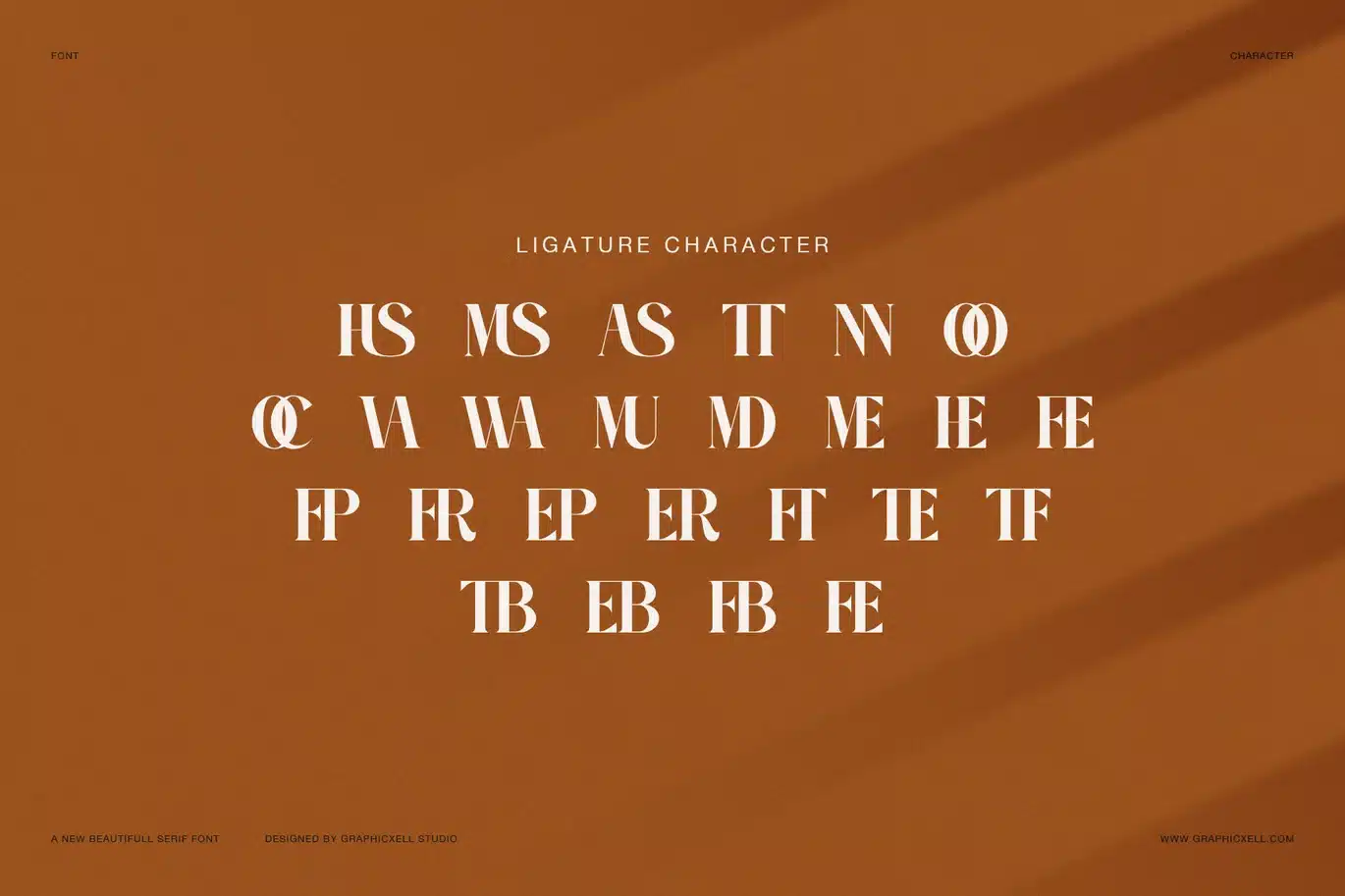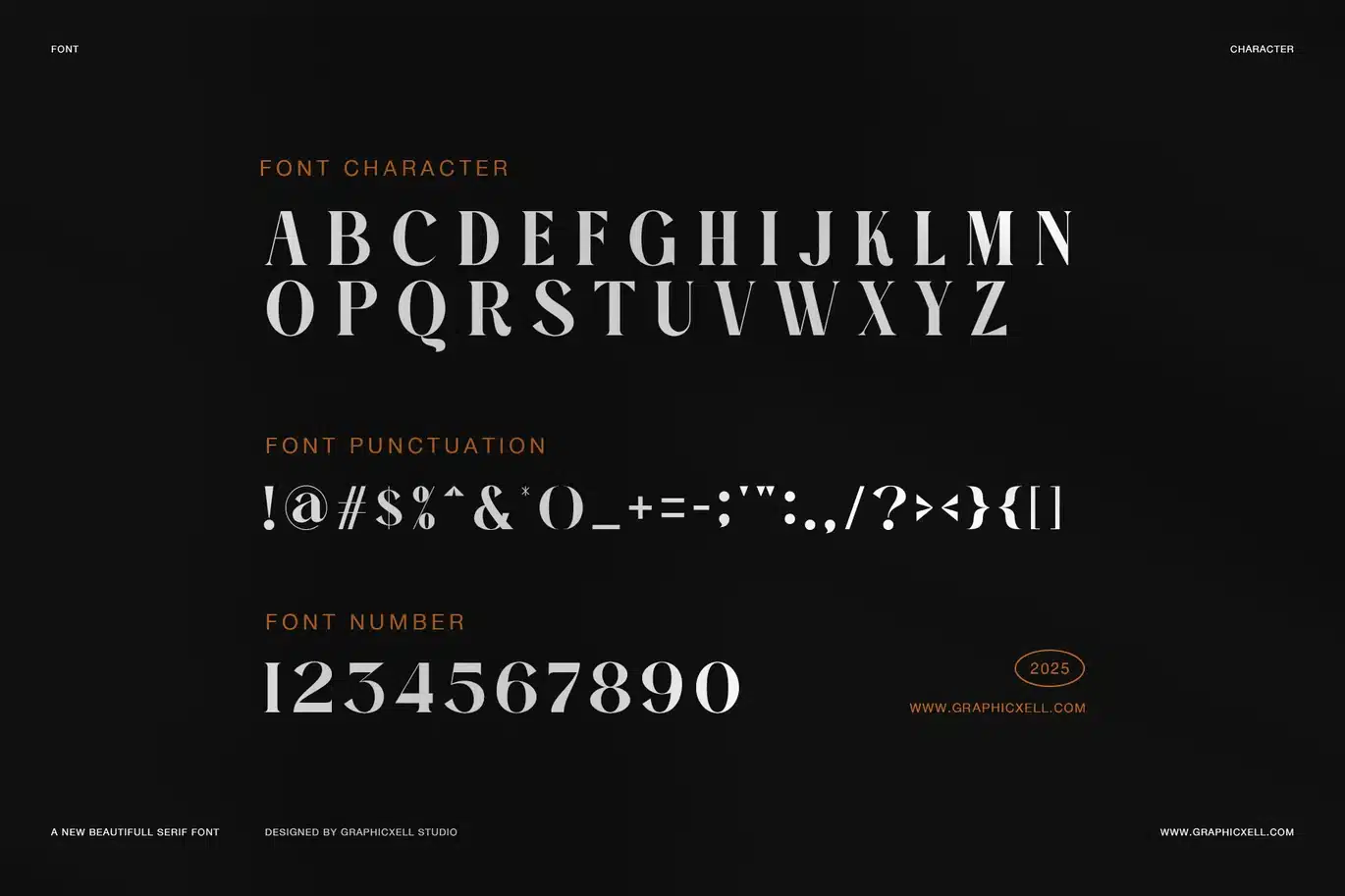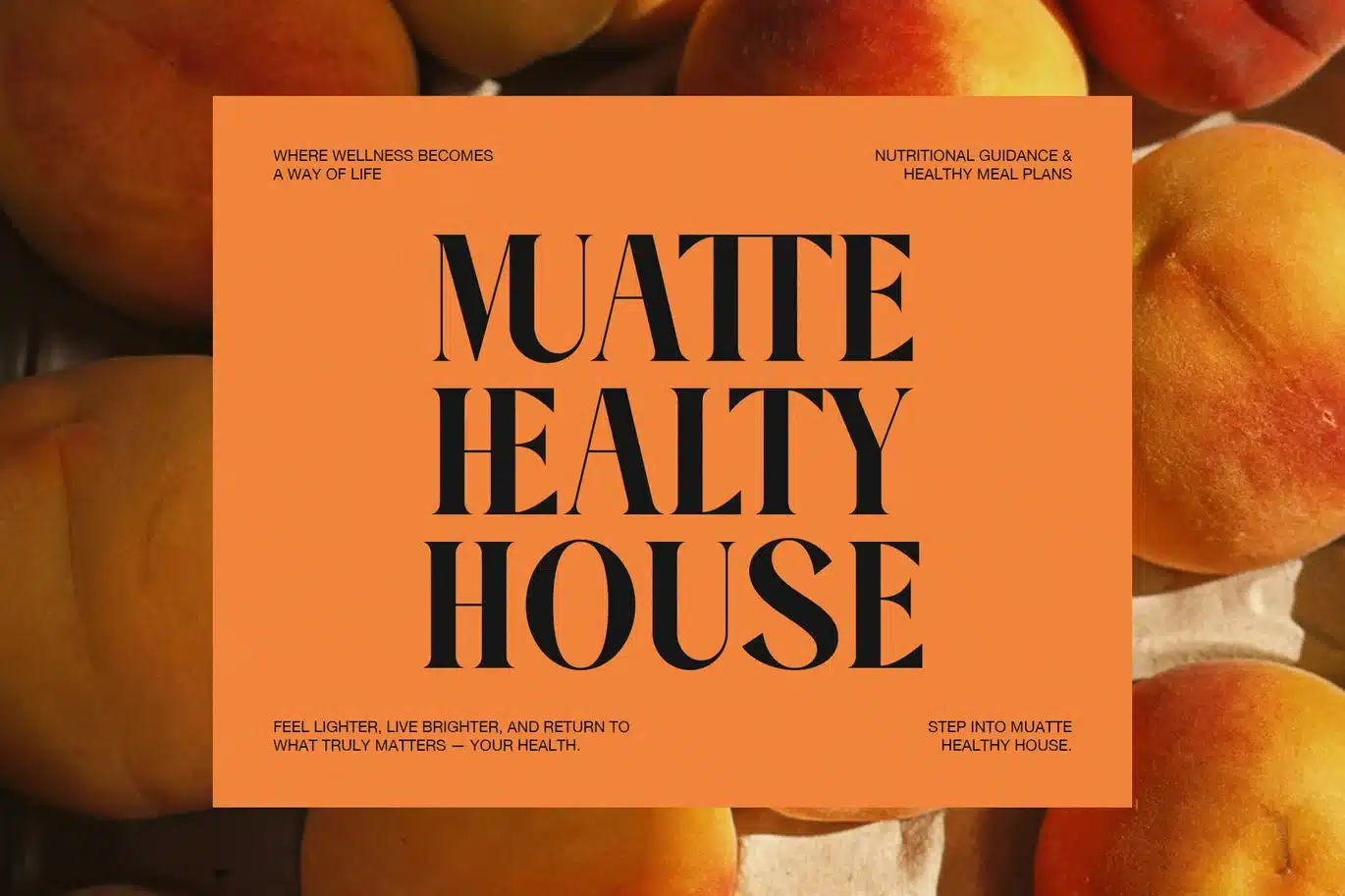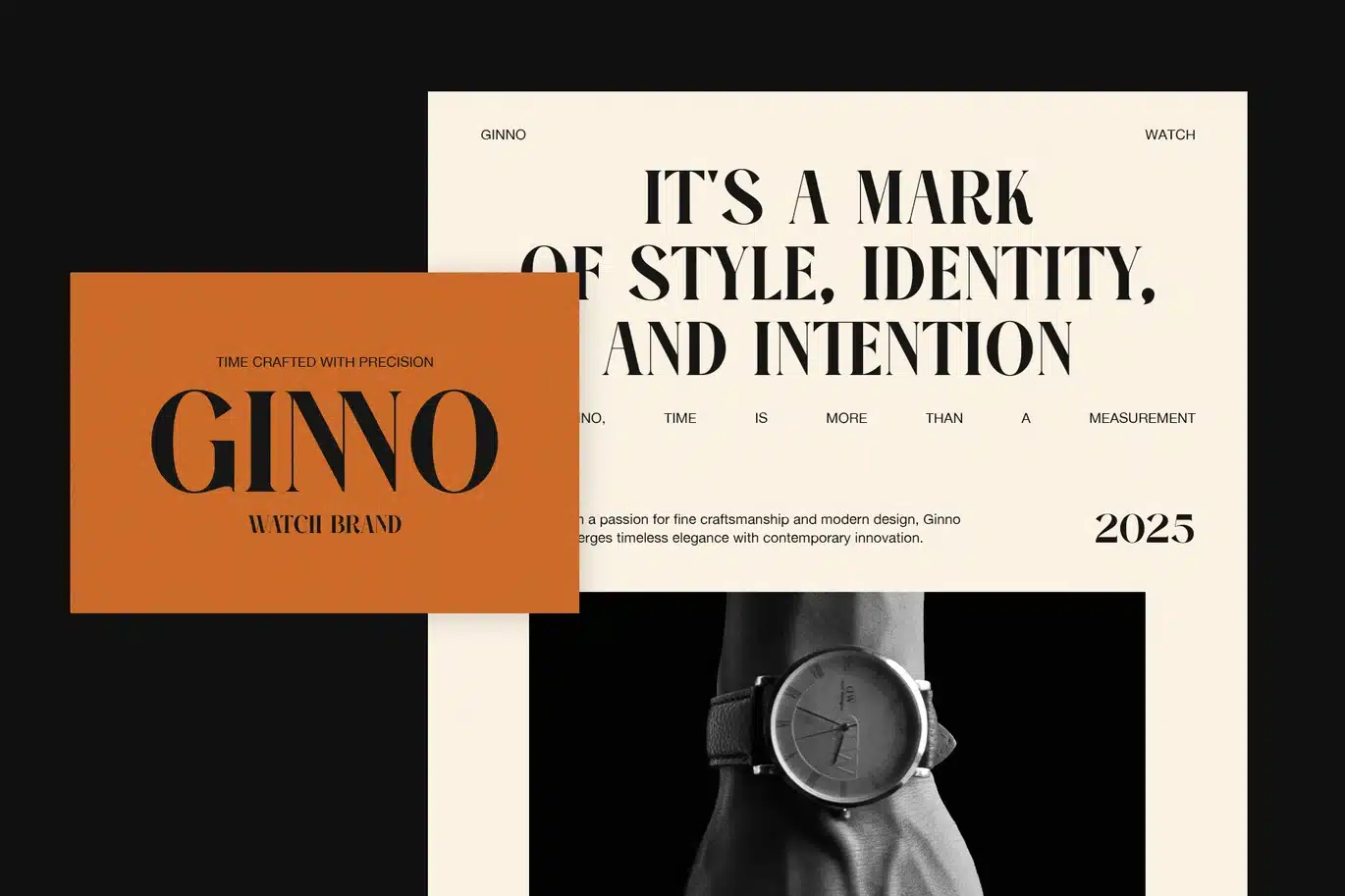
Melinda Elegant Serif Font
Melinda Elegant Serif Font is a soft and stylish serif typeface created to add charm and balance to any design. It blends smooth curves with clean lines, giving each letter a calm and graceful look. Because of its modern yet classic style, Melinda is ideal for logos, weddings, magazines, and luxury packaging.
Every letter in Melinda flows naturally. The gentle contrast between strokes makes the design elegant but easy to read. In addition, the soft edges and fine serifs bring warmth and class. As a result, your words appear polished and professional while staying simple and clear.
Melinda includes uppercase and lowercase letters, numbers, punctuation, ligatures, and alternates. It also supports multiple languages, making it perfect for global projects. Therefore, you can design freely for different audiences while keeping a consistent and refined tone.
You can use Melinda for:
Brand logos and identity design
Elegant wedding invitations and stationery
Editorial titles and magazine layouts
Luxury product labels and packaging
Website banners, posts, and print design
Because of its soft rhythm and smooth shape, Melinda adds elegance without overdoing it. It helps your designs look creative, gentle, and high-end. Moreover, it fits beautifully with minimal layouts or rich imagery. Its curves bring life to text while keeping everything balanced and easy to read.
In short, Melinda Elegant Serif Font turns simple words into stylish art. It’s soft, modern, and timeless. Whether you design for a fashion brand, an event, or print media, Melinda adds a graceful touch that feels real and lasting.